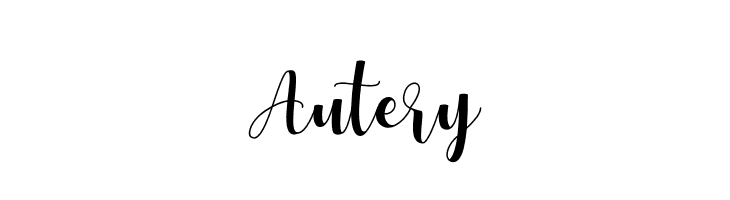
A flowing, elegant script font with elongated strokes and a dynamic slant.
A playful, handwritten-style font with bold, slightly slanted characters.
A bold, expressive handwritten font with a playful and artistic style.
An elegant, flowing script font with intricate swirls and loops.
A dynamic, expressive handwritten script font with fluid, connected strokes.
A lively and expressive handwritten font with fluid, connected strokes.
A whimsical, hand-drawn script font with decorative swirls and bold characters.
An elegant script font with intricate swashes and medium contrast, perfect for decorative uses.
A playful, spooky handwritten font ideal for Halloween themes.
A dynamic and fluid script font with elegant, flowing letterforms.